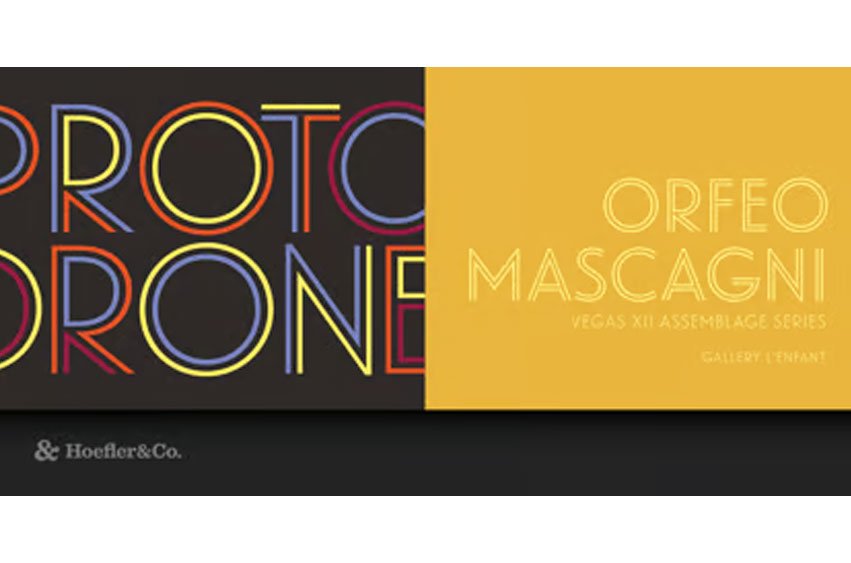
Landmark Font The signature alphabet of one of New York’s most significant buildings becomes a family of clear and colorful display fonts.
The Landmark typeface was designed by Jonathan Hoefler and Tobias Frere-Jones in 1999. A commission from Pentagram, Landmark was created as the signature typeface of Lever House, Gordon Bunshaft’s watershed skyscraper at 390 Park Avenue. Building on the eight extant letterforms that once appeared on the building’s original facade, Landmark expands to a repertoire of hundreds of characters, across four different styles that evoke the play of light, shadow, and perspective on architectural lettering.
For those who understand outdoor lettering as a form of public service, no landmark seems more deserving of its own typeface than Lever House. Designed by Gordon Bunshaft and completed in 1952, Lever House is celebrated for its emphasis on both technological innovation and urban values: it pioneered glass curtain wall construction, the technique that came to define the modern skyscraper, and it used its site to favor aesthetic and social considerations over the raw potential for profit. There could hardly be a project more sympathetic with H&Co’s own values, making the opportunity to design a typeface for Lever House an irresistible commission.
Pentagram’s Michael Bierut developed an identity system for Lever House as part of the building’s 1999 renovation. Instead of selecting a typeface from the world of print, whose origins would have made it a poor match for the mechanical needs and cultural considerations of public lettering, Bierut commissioned a new alphabet from H&Co inspired by letters found on the building itself. The words “LEVER HOUSE” on the Park Avenue window had a spare and manifest geometry which was shared by the inscription on the building’s cornerstone, together shaping the direction of the Landmark typeface. Of vital importance was that the typeface succeed in all capitals, in keeping with the architectural aesthetic, and that it satisfy a range of applications and materials, from large-scale steel signs to ADA-compliant elevator panels cast in resin.
In preparation for the font’s release, we revisited the original Landmark typeface with additional variations in mind. Thinking about the material qualities of architectural lettering, and how it responds to changes in light and perspective, prompted three new designs: a keen Inline, a contemplative Shadow, and a dazzling Dimensional.